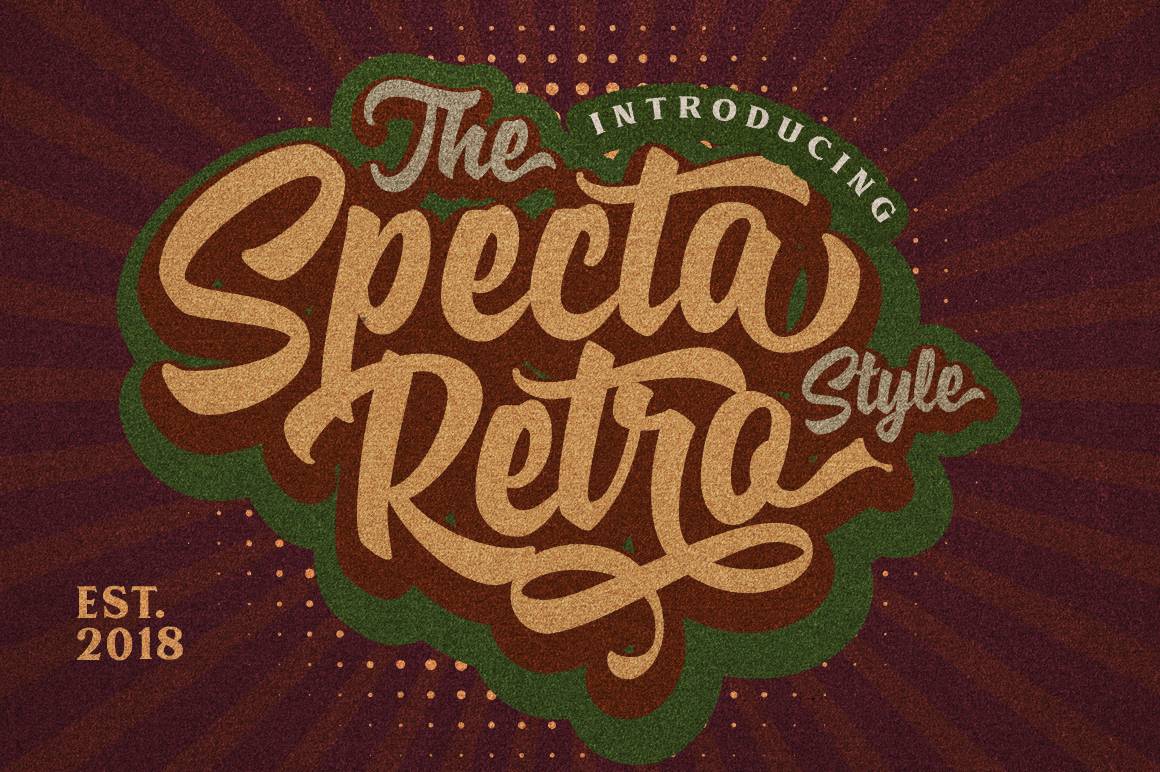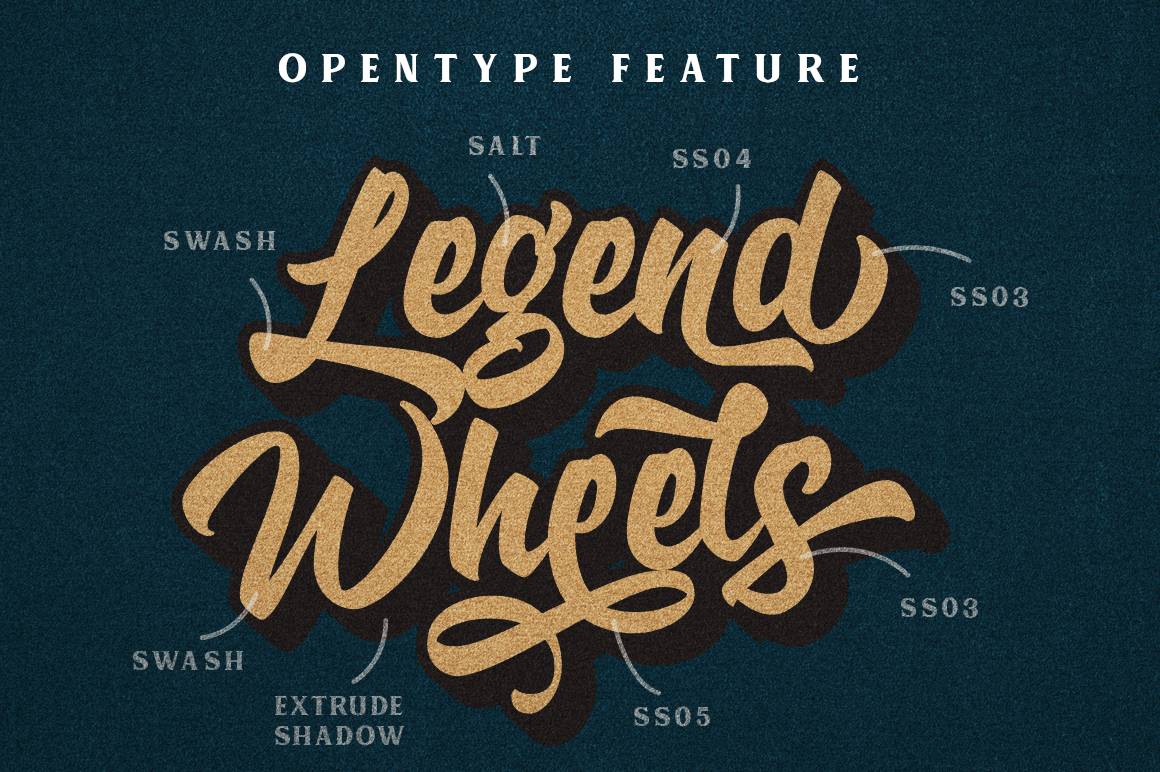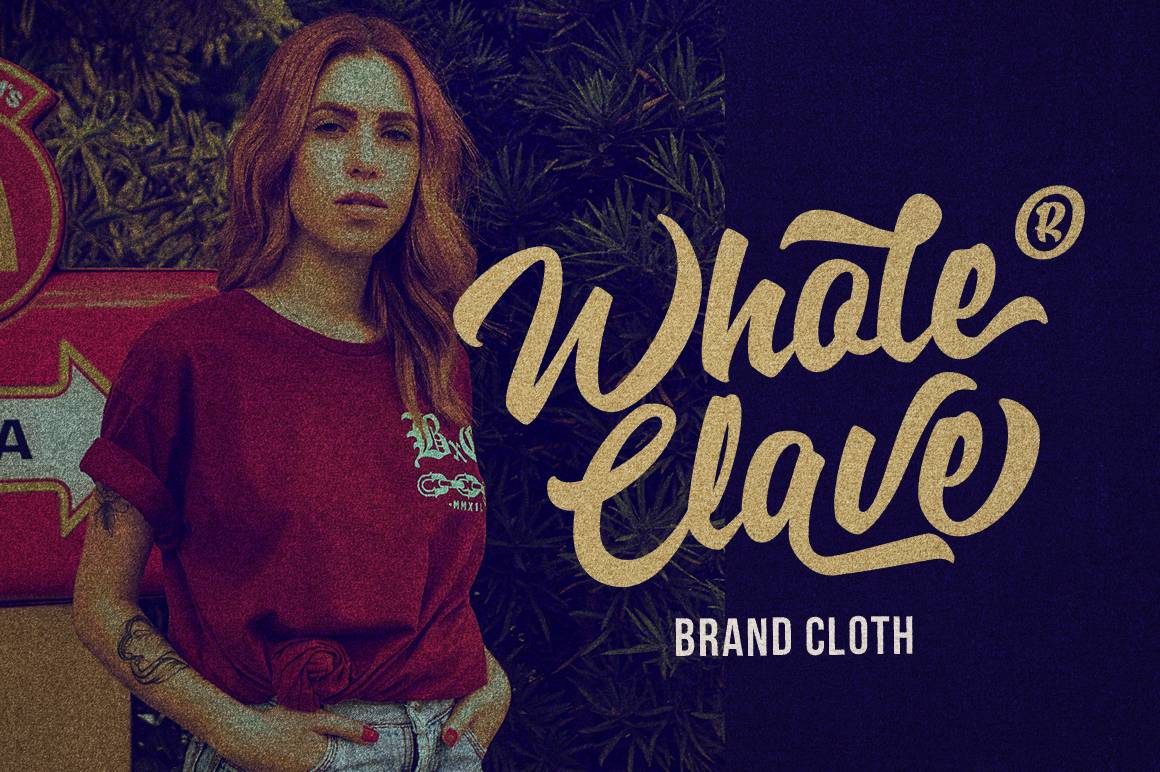
Specta Retro Style Font is a bold, flowing script font that blends vintage charm with modern legibility. Its smooth, rounded strokes and connected letterforms create a friendly and stylish feel, making it perfect for logos, invitations, and branding that seeks a nostalgic yet fresh look. This font works well for creative projects that want a warm, handcrafted touch with a dynamic and energetic vibe.
Specta Retro Style Font
About Specta Retro Style Font
| Font family | Specta Retro Style Font |
| Release date | 2018-09-16 |
| Designer | Hendra Maulia and Aulia Rahman |